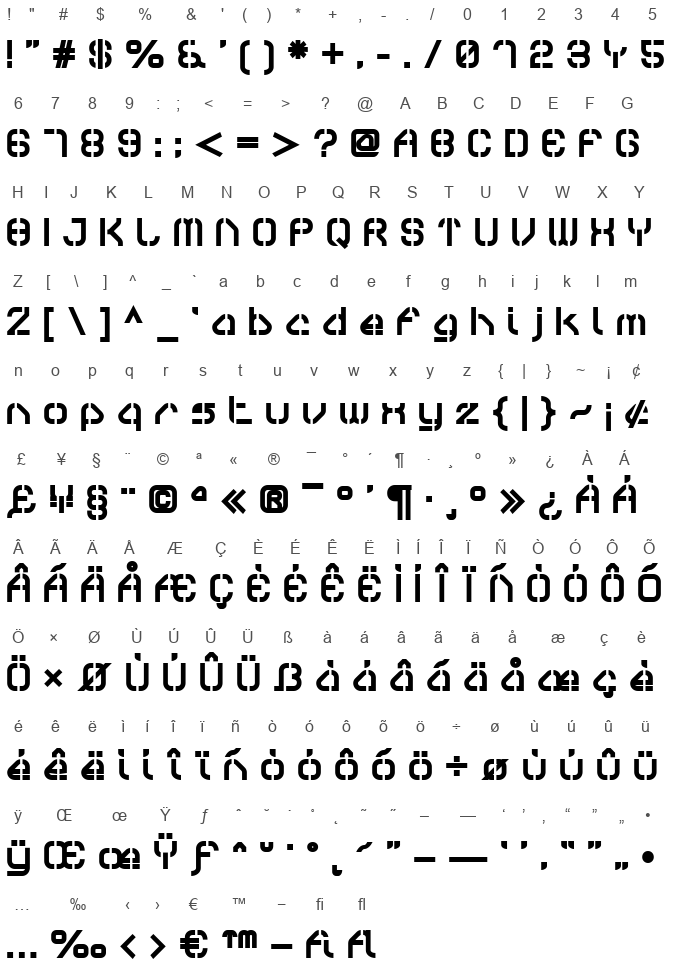
Sylar Stencil is a typeface characterized by its distinct approach to the stencil design ethos, blending the functional charm of traditional stencil fonts with contemporary flair. Unlike conventional stencil fonts that emphasize industrial utility, Sylar Stencil introduces an artistic twist, making it versatile for both modern and vintage-inspired projects.
Upon first glance, Sylar Stencil captivates with its bold lines and confident shapes. The characters are carefully crafted to ensure readability while maintaining unique cut-outs and joins, inherent to stencil design. These cut-outs are designed thoughtfully, ensuring that the font retains its integrity and legibility across various sizes and applications. The uniformity of the stencil cuts adds a rhythmic visual harmony, making text set in Sylar Stencil pleasantly engaging.
What sets Sylar Stencil apart is its ability to straddle the line between functionality and aesthetics. It is not merely a utilitarian choice for projects requiring a stencil look; it is also imbued with a sense of personality and sophistication. Its application can range from military and cargo box labels, which are traditional realms for stencil fonts, to more avant-garde uses such as branding, poster design, and stylish apparel. Its versatility is further amplified by its adaptability in both digital and print mediums, where it can convey strength, reliability, and innovation.
In sum, Sylar Stencil stands out as a multifaceted font. It pays homage to the practical origins of stencil typefaces while elevating them through artistic expression and modern design principles. Whether used for its traditional charm or its contemporary appeal, Sylar Stencil offers designers a dynamic toolkit for bringing depth and character to their visual narratives.
Sylar Stencil